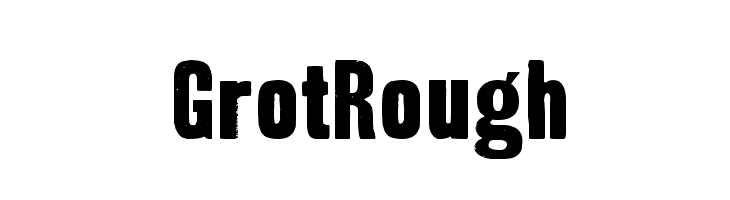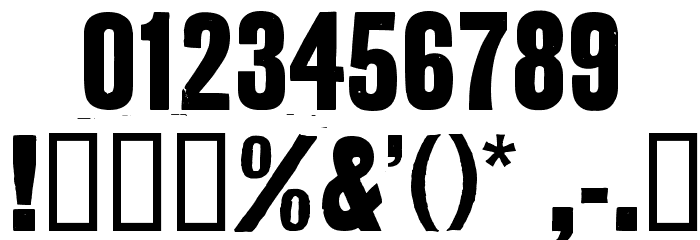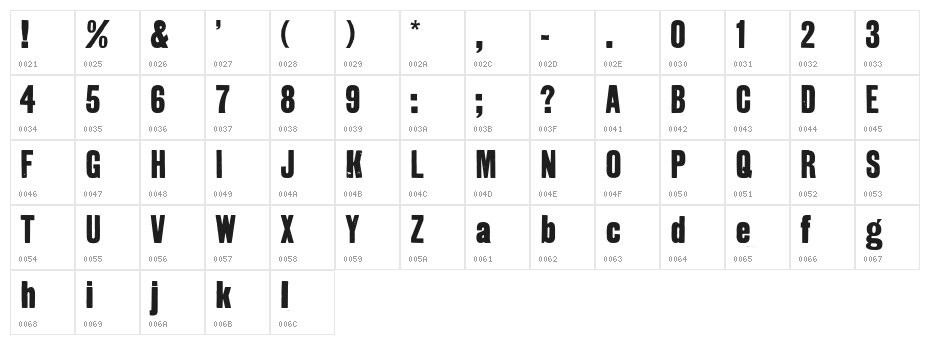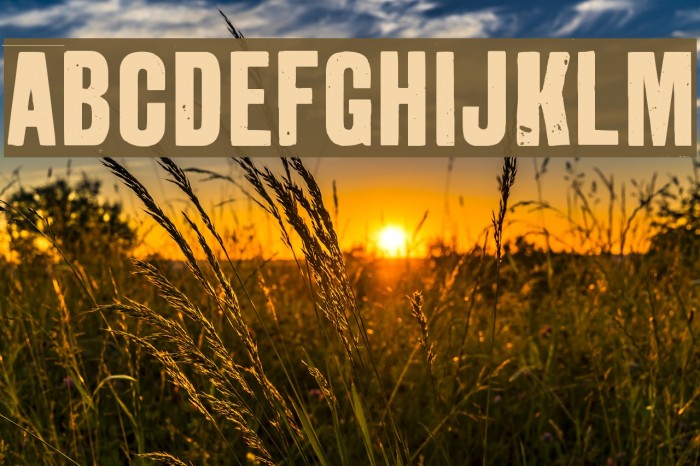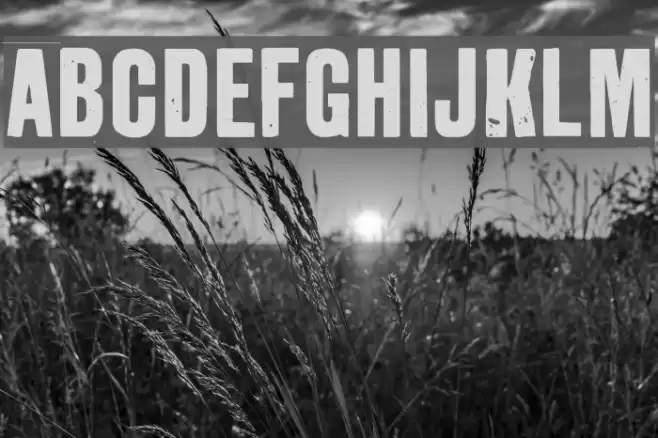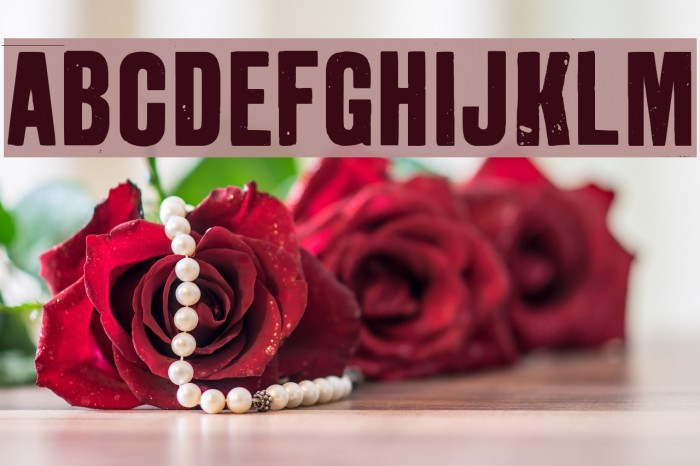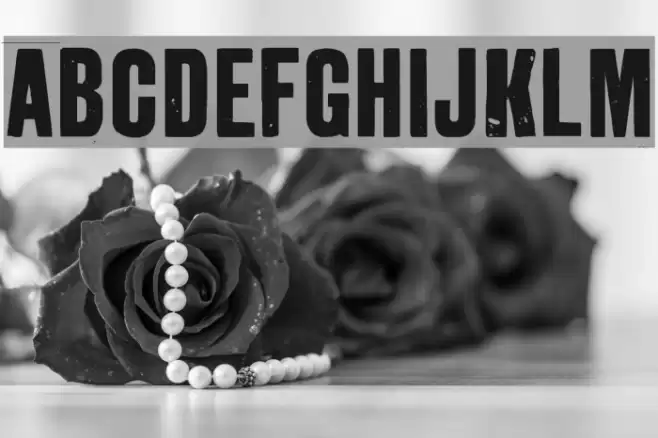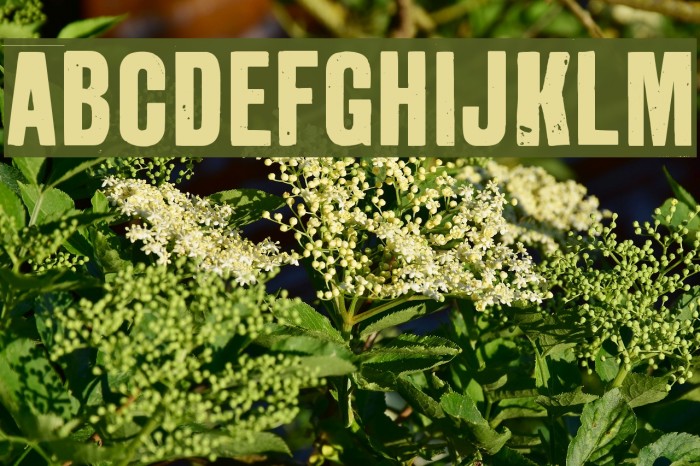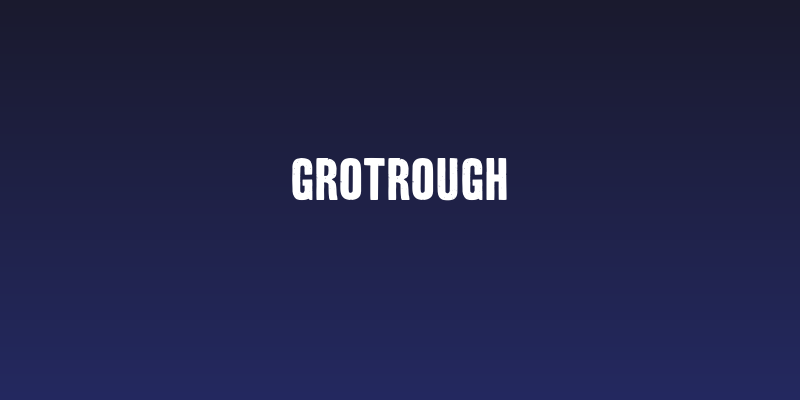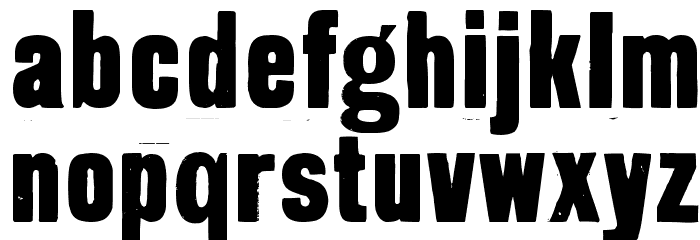
GrotRough Font
GrotRough Description
This font features a bold and rugged design with a distressed texture that gives it a vintage and industrial feel. The uppercase and lowercase letters are robust and impactful, making them ideal for attention-grabbing headlines. The numbers and special characters maintain the same boldness and texture, ensuring consistency across all text elements. The rough edges and uneven surfaces add a handcrafted touch, making it suitable for projects that require a raw and authentic aesthetic. Its strong presence and unique style make it perfect for branding, posters, and any design that aims to stand out.
| Overall Style | Vintage, Industrial |
| Proposed Projects | Ideal for branding, posters, vintage-themed designs, and industrial-style projects. |